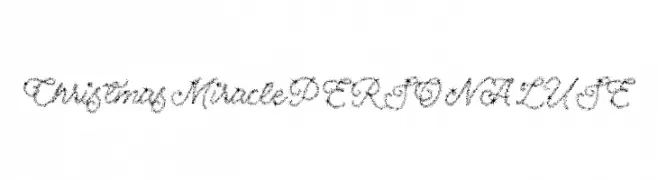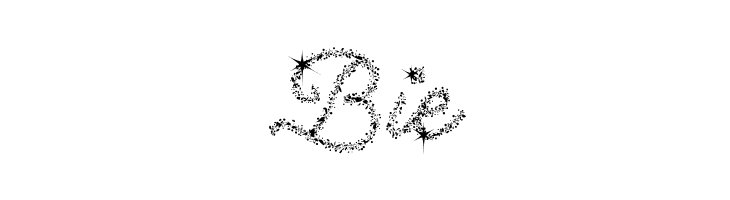
A bold, playful dingbat font with baby and nature-themed icons.
A playful, handwritten font with smooth, flowing curves and consistent stroke width.
A playful, handwritten font with bold, rounded strokes and a casual style.
A dramatic, dripping font with a horror-themed aesthetic.
A bold, brush-style font with dynamic, expressive strokes.
A playful, bold font with rounded, bubble-like characters.
A distressed, dripping font with a chaotic and edgy style.
A playful and elegant handwritten font with fluid, cursive letterforms.
A playful, hand-drawn font with a whimsical and friendly style.
A playful, hand-drawn font with tall, narrow characters and a whimsical style.
A graceful script font with fluid, calligraphic strokes and elegant flourishes.
A playful, handwritten font with a casual and informal style.
A playful, hand-drawn font with a bold shadow effect for a fun, informal look.
A bold, expressive handwritten font with fluid strokes and dynamic style.
A playful, bold font with a whimsical, hand-drawn style.
A bold, playful script font with smooth, connected letters and a lively character.
A modern, geometric font with clean, rounded edges and uniform line weight.
A chaotic, sketchy font with a hand-drawn, scribbled texture.
A hand-drawn, organic font with a casual and approachable style.
A flowing, cursive font with elegant, sweeping strokes and a dynamic slant.
A bold, geometric font with a collegiate style, ideal for impactful designs.
A bold, textured font with a vintage, handcrafted appearance.
Elegant handwritten script with a signature style.
A playful, illustrative font made of quirky hand-drawn figures.